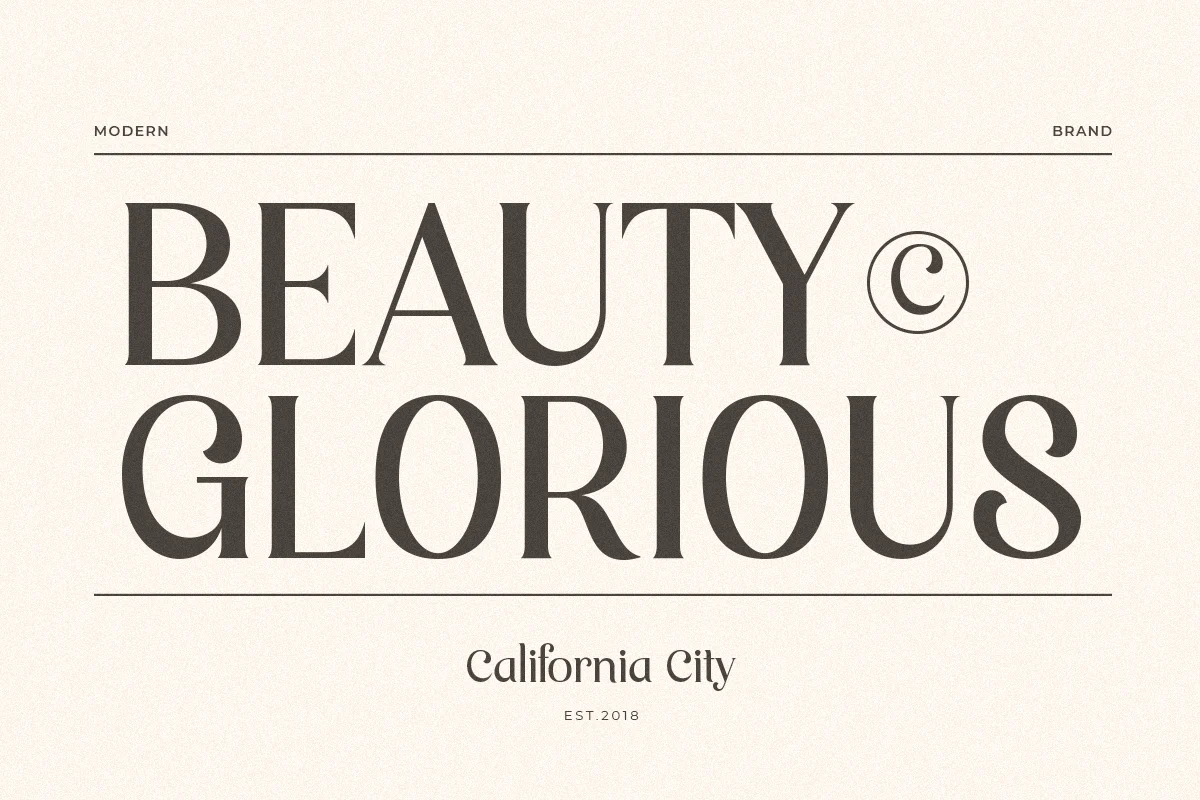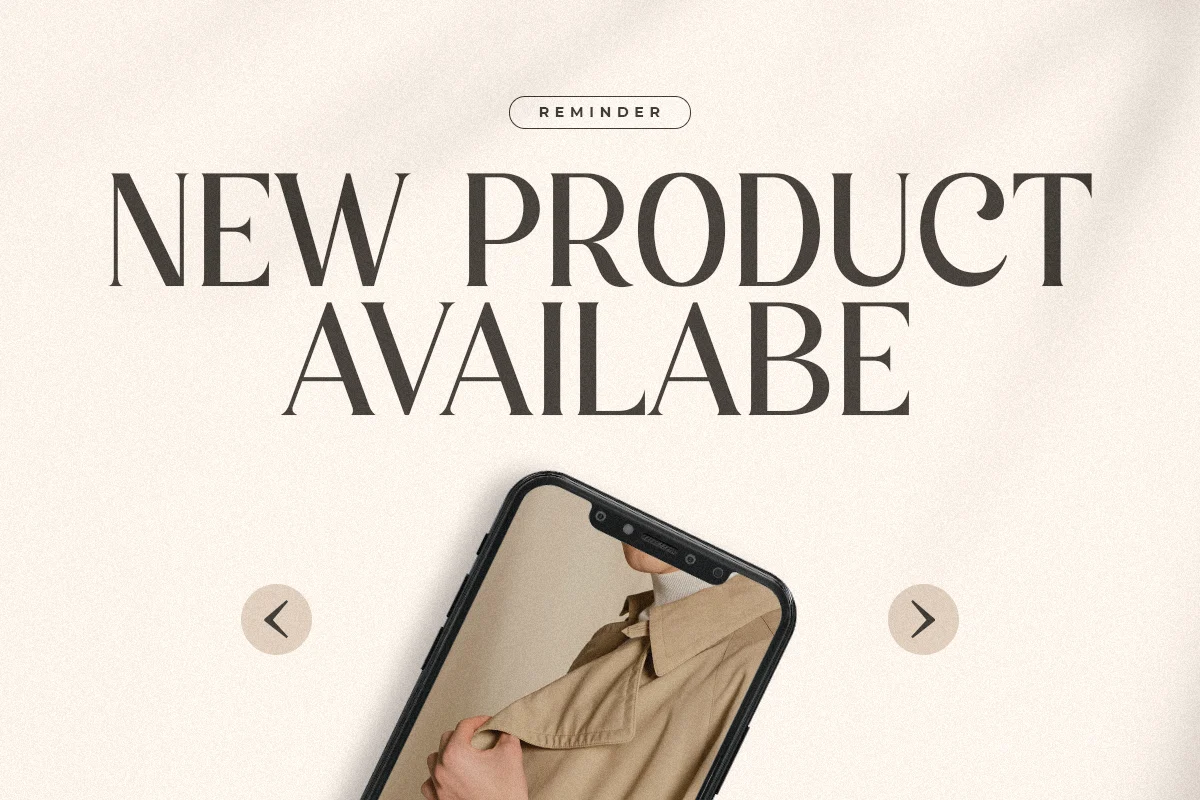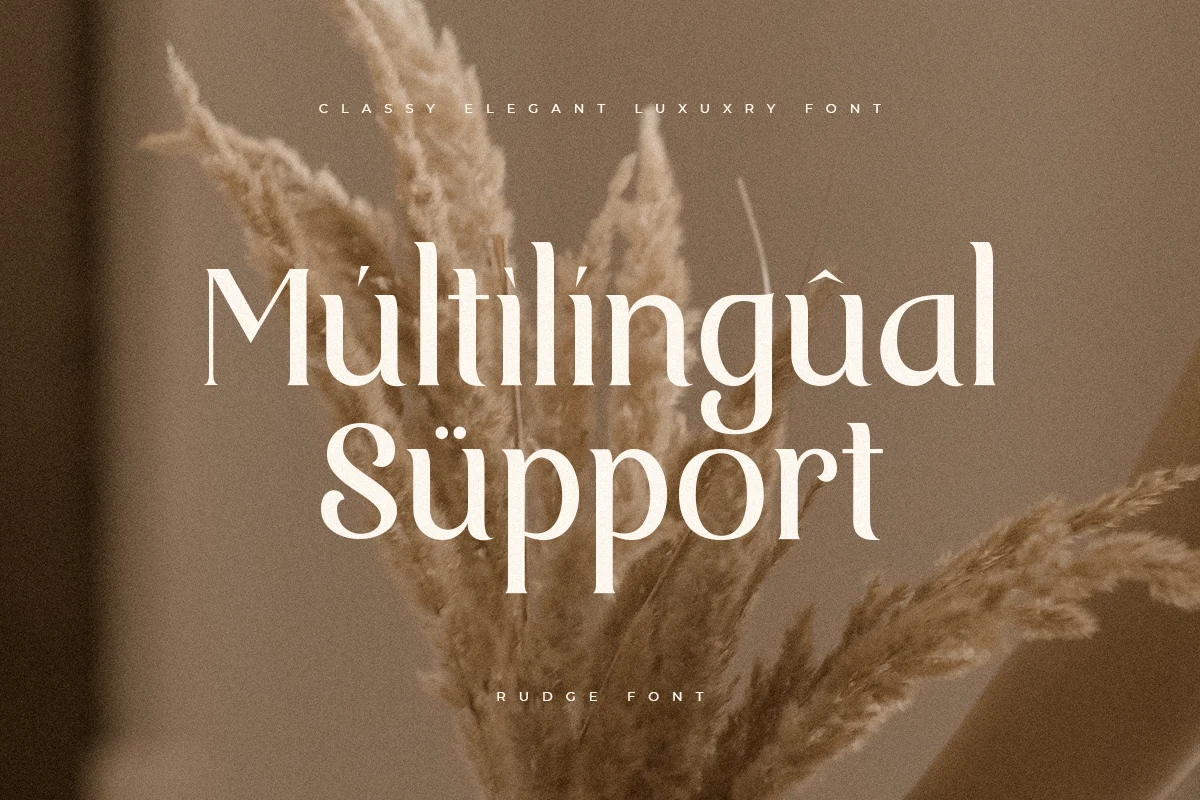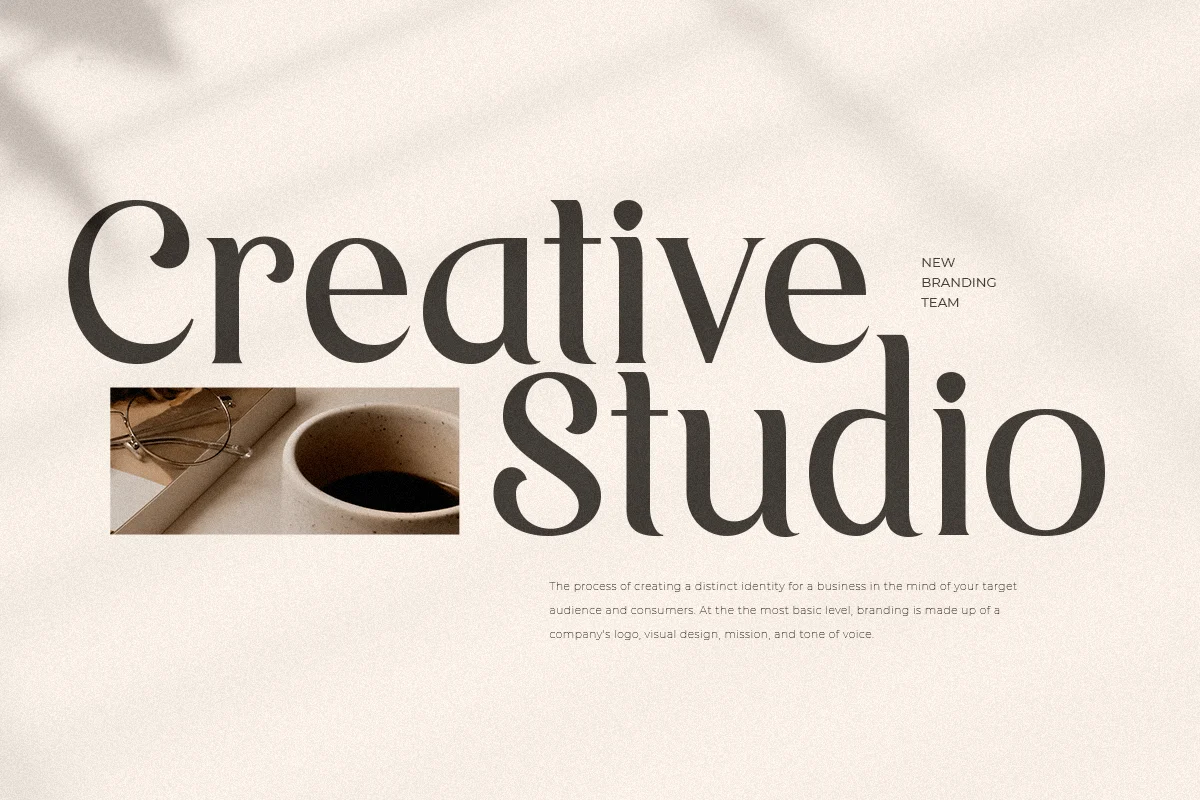
Rudge – Classy Elegant Luxury Font
A Serif font that we created special for luxury branding needs, with extra ligature and alternates in unique shape will be ready to add value of your brand. It so nice to leverage designer or product owner that need solutions to make their design look more Luxury and modern. And specially for Luxury font, We prepared any unique characters to help you create unlimited variations for your creative needs.
Rudge Classy Elegant Luxury Font ready with:
- Any options to get unique creative characters
- Ready with Lowercase and Uppercase characters